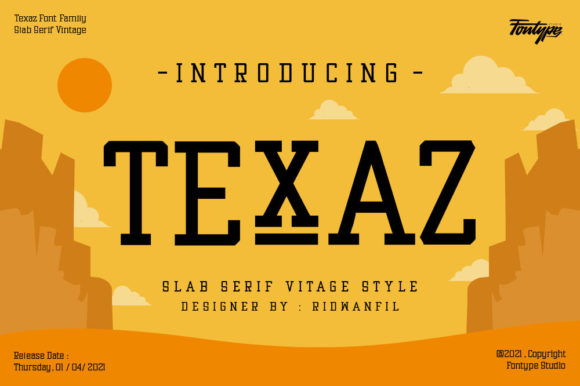
In a world saturated with digital monotony, Texaz Font emerges as a beacon of creativity, a typographic masterpiece that transcends the boundaries of ordinary fonts. This slab serif font, meticulously crafted by the visionary Ridwanfil, is not merely a collection of characters; it's an artistic expression, a testament to the power of visual communication.
With its bold strokes, vintage charm, and undeniable charisma, Texaz Font is the ultimate choice for those seeking to make a statement, to capture attention, and to leave an indelible mark on the digital landscape. Its timeless appeal knows no bounds, seamlessly adapting to a myriad of projects, from captivating social media posts to visually stunning branding materials.
Whether you're a seasoned designer or just starting your creative journey, Texaz Font is your gateway to unlocking a world of typographic possibilities. Its versatility is truly remarkable, effortlessly adding a touch of elegance to invitations, posters, logos, and even everyday documents. With Texaz Font at your fingertips, the mundane transforms into the extraordinary, the ordinary into the unforgettable.
Imagine the impact of your next festival poster, adorned with the bold, eye-catching characters of Texaz Font. The vibrant colors and intricate designs dance harmoniously with the font's vintage flair, inviting viewers to immerse themselves in a world of celebration and joy. Or envision your latest social media campaign, where Texaz Font takes center stage, captivating audiences with its timeless charm and undeniable magnetism.
Texaz Font is more than just a font; it's an experience, a journey through the annals of typographic history. With each letter, each word, each design, you'll feel the passion and dedication poured into its creation. It's a font that ignites the imagination, propelling your creativity to new heights.
Join the ranks of those who have discovered the transformative power of Texaz Font. Embrace its bold spirit, its vintage elegance, and its boundless versatility. Let your designs speak volumes, let your words dance with rhythm, and let your creativity soar to new heights. Texaz Font is the key to unlocking your typographic destiny.